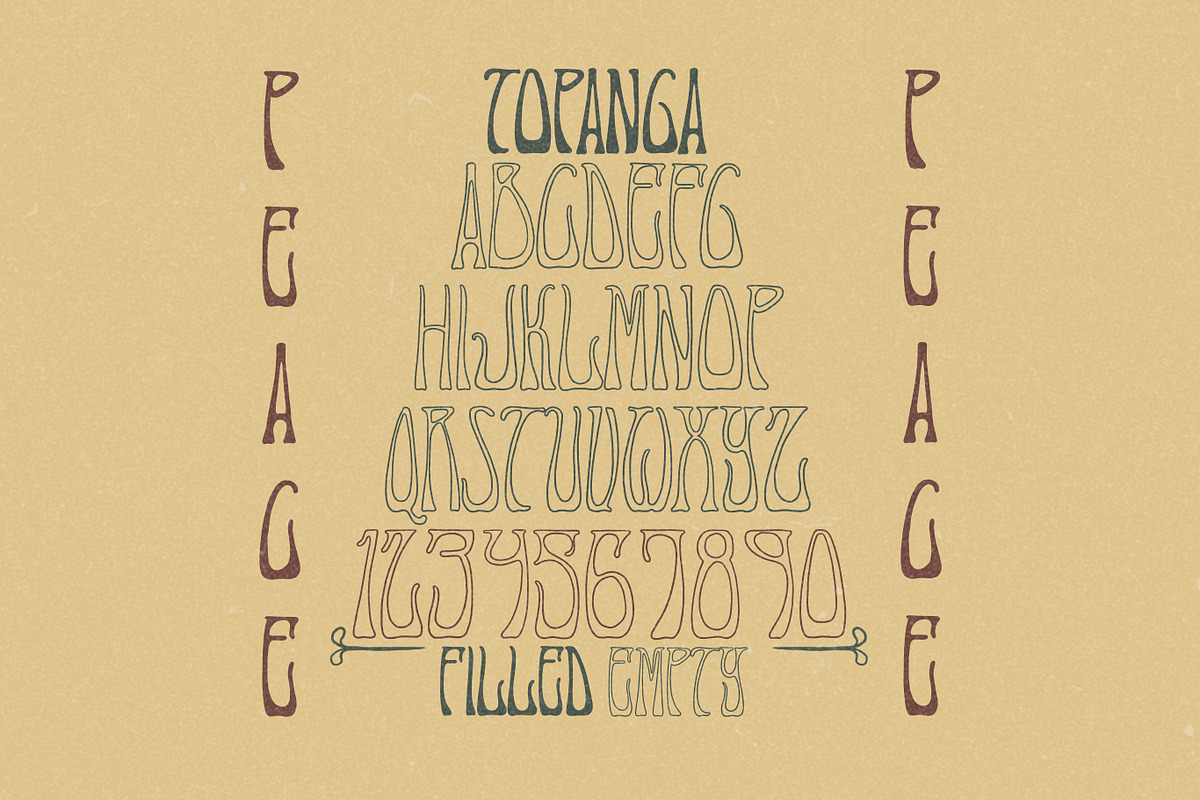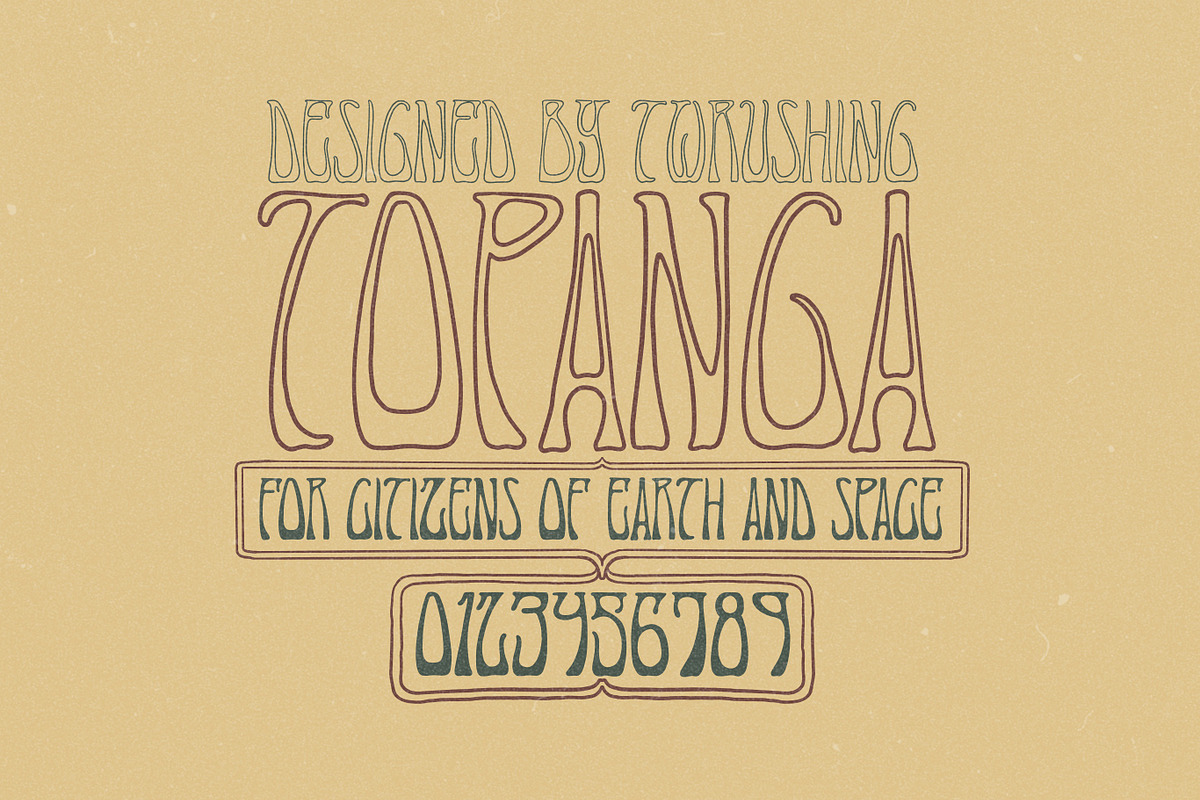
TOPANGA HIPPIE FONT BY TWRUSHING
Great for that vintage poster feel. Comes with Numerals, Capitals and Basic Quotations. Hand-drawn and hand designed.